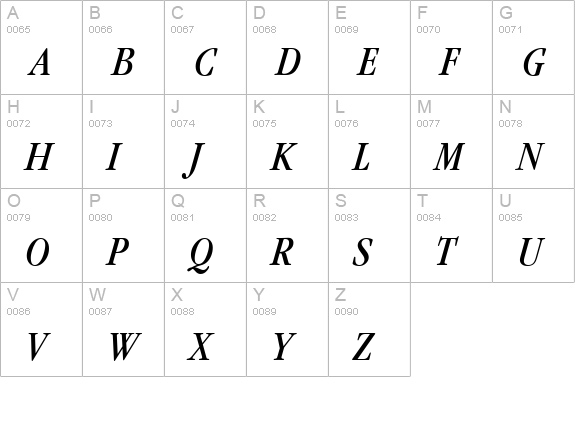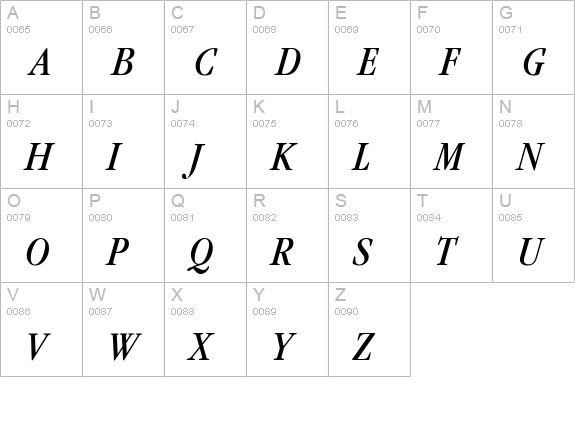
Garfeld-Nova-Cd Italic Font Details
Garfeld-Nova-Cd Italic is a distinctive, italic variant in the Garfeld typeface family \xE2\x80\x94 well suited to design and typography projects.
Garfeld-Nova-Cd Italic is a stylish and sleek font that exudes elegance and sophistication. Its italicized form adds a touch of modernity and flair to any design project. The smooth curves and sharp edges of this font make it perfect for creating eye-catching logos, headlines, and branding materials. The best part? Garfeld-Nova-Cd Italic is available for free download at FontsMarket.com. This means you can easily enhance your designs with this high-quality font without breaking the bank. Whether you're a professional designer or just starting out, Garfeld-Nova-Cd Italic is a versatile and versatile font that will elevate your work to the next level. Download it now and add a touch of sophistication to your projects!